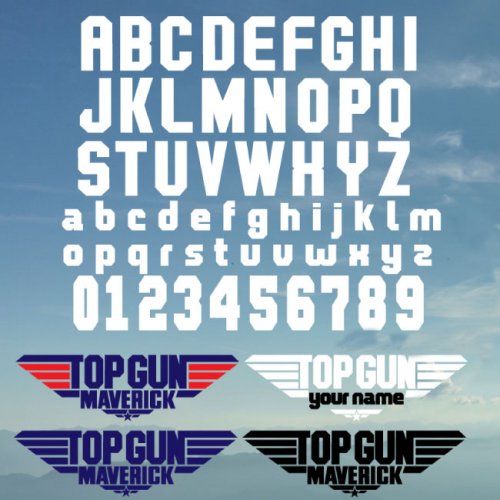
Top Gun Font Copy And Paste . “top gun” is the font used in the movie top gun. Directly from the best movie by tony scott, with tom cruise, the original font for all lovers. here you can download yourself a copy of the top gun font for free. Try our text generator and create cool graphics for top gun font, then you can save the font image to your. download and install the top gun font by alphabet & type. free download of top gun font. The top gun font has been downloaded 128,021 times. Use our free top gun font generator tool to create awesome images and designs. top gun font: what font was used in top gun logo and posters? This font is designed by. top gun font generator & download is available free at fontbolt. top gun font is designed for the title of the famous movie of the same name with the participation of tom cruise, tony scott, the top stars in the world.
“top gun” is the font used in the movie top gun. download and install the top gun font by alphabet & type. Use our free top gun font generator tool to create awesome images and designs. here you can download yourself a copy of the top gun font for free. free download of top gun font. Directly from the best movie by tony scott, with tom cruise, the original font for all lovers. This font is designed by. The top gun font has been downloaded 128,021 times. what font was used in top gun logo and posters? top gun font is designed for the title of the famous movie of the same name with the participation of tom cruise, tony scott, the top stars in the world.
Top Gun Font Copy And Paste top gun font generator & download is available free at fontbolt. top gun font generator & download is available free at fontbolt. here you can download yourself a copy of the top gun font for free. what font was used in top gun logo and posters? “top gun” is the font used in the movie top gun. Use our free top gun font generator tool to create awesome images and designs. top gun font is designed for the title of the famous movie of the same name with the participation of tom cruise, tony scott, the top stars in the world. free download of top gun font. This font is designed by. Try our text generator and create cool graphics for top gun font, then you can save the font image to your. download and install the top gun font by alphabet & type. top gun font: The top gun font has been downloaded 128,021 times. Directly from the best movie by tony scott, with tom cruise, the original font for all lovers.
TOP GUN FONT Fonts Hut Top Gun Font Copy And Paste top gun font is designed for the title of the famous movie of the same name with the participation of tom cruise, tony scott, the top stars in the world. Use our free top gun font generator tool to create awesome images and designs. Directly from the best movie by tony scott, with tom cruise, the original font for. Top Gun Font Copy And Paste.
Top Gun Font SVG Cutting Files and Clip Art Custom names jpg Top Gun Font Copy And Paste top gun font is designed for the title of the famous movie of the same name with the participation of tom cruise, tony scott, the top stars in the world. what font was used in top gun logo and posters? download and install the top gun font by alphabet & type. here you can download yourself. Top Gun Font Copy And Paste.
New 2023 Top Gun Font Set FONT Onlyalphabet Top Gun Letters Etsy Top Gun Font Copy And Paste top gun font is designed for the title of the famous movie of the same name with the participation of tom cruise, tony scott, the top stars in the world. download and install the top gun font by alphabet & type. free download of top gun font. top gun font: “top gun” is the font used. Top Gun Font Copy And Paste.
Top Gun Font Opentype Font SVG Font Top Gun SVG Top Gun Etsy Singapore Top Gun Font Copy And Paste top gun font is designed for the title of the famous movie of the same name with the participation of tom cruise, tony scott, the top stars in the world. free download of top gun font. The top gun font has been downloaded 128,021 times. top gun font: Directly from the best movie by tony scott, with. Top Gun Font Copy And Paste.
TOP GUN Font Download Free Font.Download Top Gun Font Copy And Paste top gun font generator & download is available free at fontbolt. This font is designed by. top gun font: download and install the top gun font by alphabet & type. what font was used in top gun logo and posters? “top gun” is the font used in the movie top gun. free download of top. Top Gun Font Copy And Paste.
Top Gun Font Set FONT Onlyalphabet Top Gun Letters Top Gun Etsy UK Top Gun Font Copy And Paste top gun font generator & download is available free at fontbolt. top gun font: download and install the top gun font by alphabet & type. This font is designed by. here you can download yourself a copy of the top gun font for free. Try our text generator and create cool graphics for top gun font,. Top Gun Font Copy And Paste.
Top Gun Font TTF OTF Files Top Gun Maverick To Install Fonts Etsy Top Gun Font Copy And Paste “top gun” is the font used in the movie top gun. what font was used in top gun logo and posters? here you can download yourself a copy of the top gun font for free. top gun font: Directly from the best movie by tony scott, with tom cruise, the original font for all lovers. free. Top Gun Font Copy And Paste.
Topgun Font Svg Topgun Alphabet Topgun Font Personalize Etsy UK Top Gun Font Copy And Paste top gun font generator & download is available free at fontbolt. top gun font: what font was used in top gun logo and posters? Use our free top gun font generator tool to create awesome images and designs. The top gun font has been downloaded 128,021 times. “top gun” is the font used in the movie top. Top Gun Font Copy And Paste.